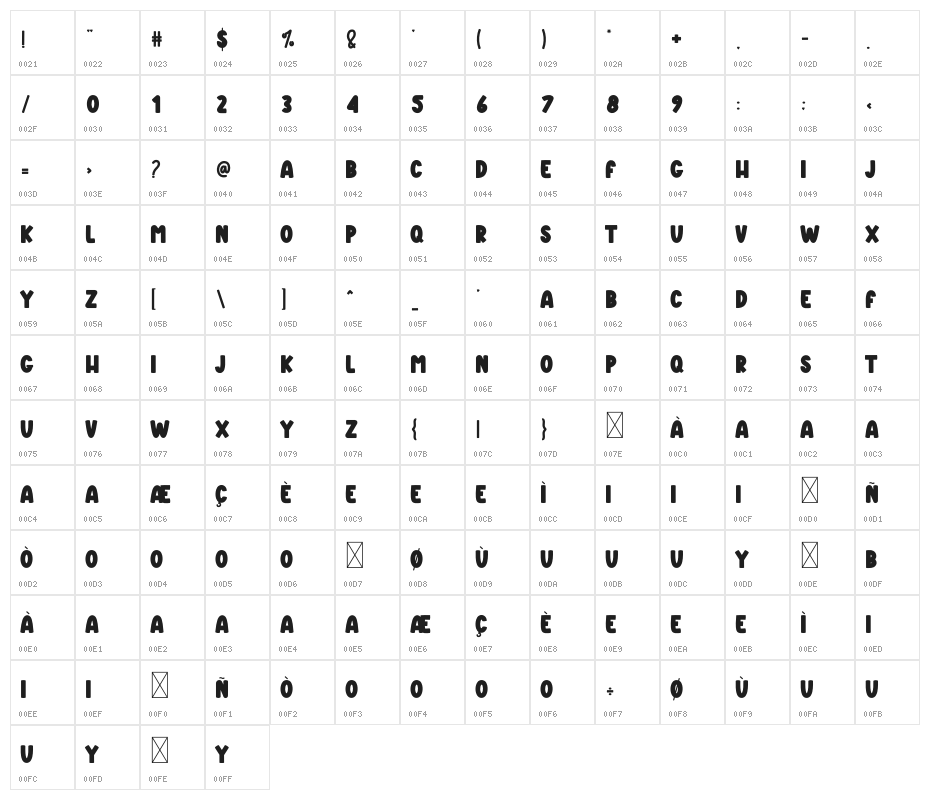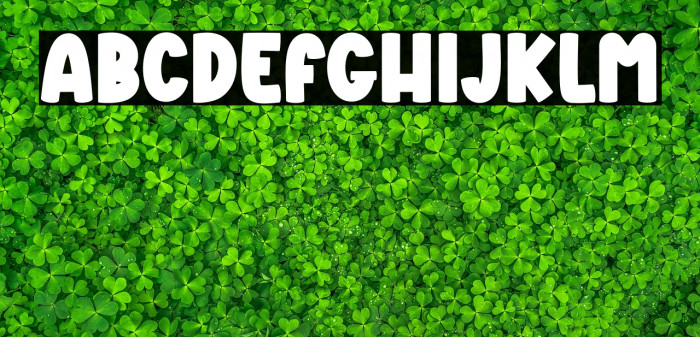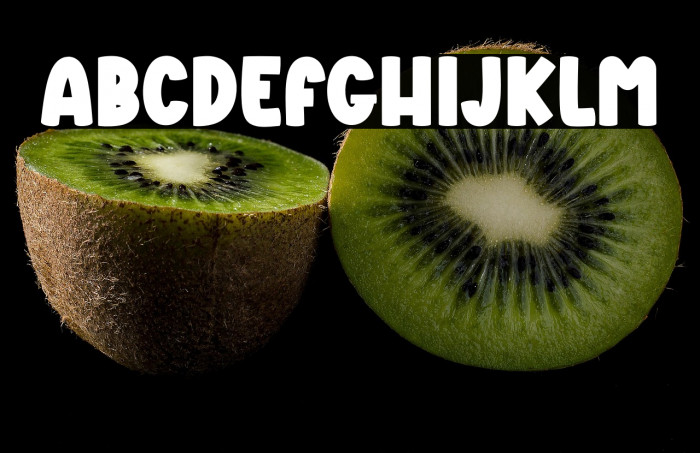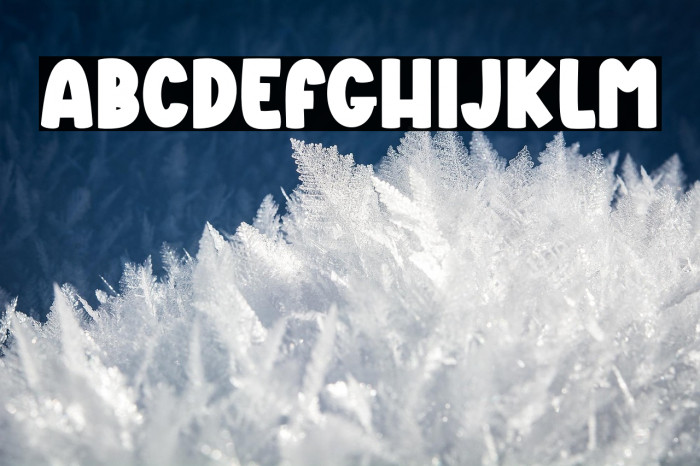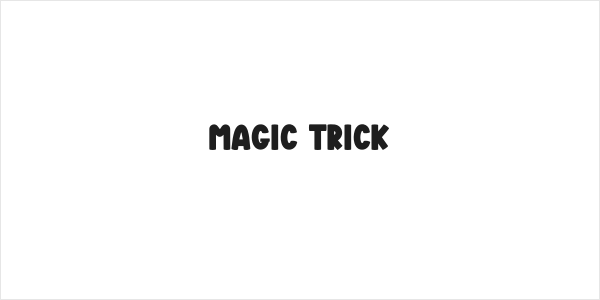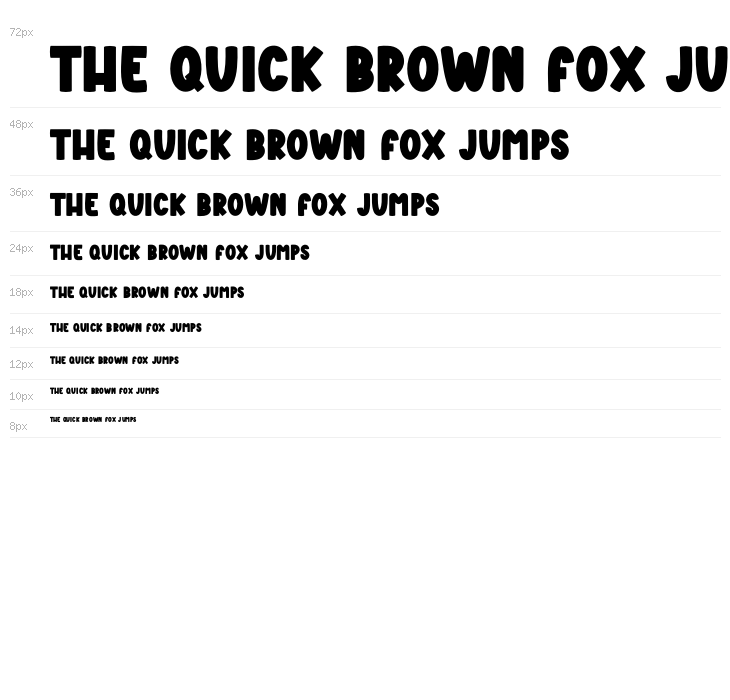
Magic Trick Font
Magic Trick Description
This font features bold, rounded characters with a playful and friendly appearance. The letters are uniformly thick, giving it a strong presence while maintaining a soft and approachable feel. The rounded edges and consistent stroke width contribute to its whimsical and inviting nature. It is well-suited for designs that aim to convey warmth and approachability. The numbers and special characters maintain the same playful style, ensuring consistency across all elements. This font is ideal for projects that require a touch of fun and creativity.
| Overall Style | Playful |
| Use Case | Logos, Headlines, Posters |
| Proposed Projects | Perfect for children's books, playful branding, posters, and greeting cards. |